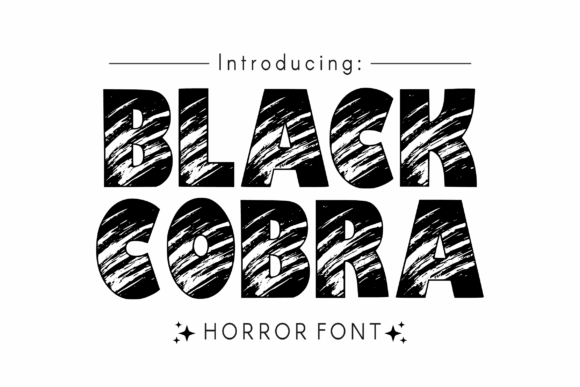
Unveiling the Spine-Chilling Allure of Black Cobra Font
In the realm of typography, few fonts manage to evoke the same level of intrigue and fear as the Black Cobra Font. This unique typeface is a masterful blend of horror and grunge elements, distilled into a shadowy style that’s as captivating as it is unsettling. Each character in the Black Cobra Font is meticulously designed with distinctive strokes that seem to whisper tales of eeriness, making it the perfect choice for designers and crafters looking to inject a dose of fear into their creative projects.
The Birth of a Monster: Design and Features
The Black Cobra Font is not just a collection of letters; it’s an experience. Its design is rooted in the darker corners of imagination, where the ordinary rules of typography are bent to create something that’s both haunting and mesmerizing. The font’s characters are crafted with a level of detail that brings out the horror and mystery in any text, transforming it into a visual narrative that’s as engaging as it is spine-chilling.
One of the standout features of the Black Cobra Font is its versatility. Whether you’re working on a screen printing project for t-shirts, designing striking mugs, creating catchy stickers, or crafting eye-catching posters, this font adapts seamlessly to various mediums and design needs. Its unique style doesn’t just convey a message; it tells a story, evoking emotions and reactions that are hard to ignore.
Bringing Fear to Life: Creative Applications
For designers and crafters, the Black Cobra Font opens up a world of creative possibilities. Imagine a t-shirt with a slogan that seems to leap off the fabric, its shadowy letters echoing the mystique of the night. Or picture a mug that appears to whisper dark secrets, its font seeming to shift and shimmer in the light. The Black Cobra Font isn’t just a design element; it’s a central character in your creative narrative, capable of transforming the mundane into the extraordinary.
In the world of digital design, standing out is key. The Black Cobra Font offers a distinctive edge, allowing designers to create works that are not only visually stunning but also emotionally resonant. Whether you’re aiming to create a sense of foreboding, mystery, or sheer horror, this font provides the tools to bring your vision to life.
Why Choose Black Cobra Font?
So, why should designers and crafters choose the Black Cobra Font for their projects? The answer lies in its unique blend of style, versatility, and emotional impact. Here are a few compelling reasons:
- Unique Style: In a sea of generic fonts, the Black Cobra Font stands out with its distinctive horror-grunge aesthetic.
- Versatility: From digital designs to print projects, this font adapts to various mediums and applications.
- Emotional Resonance: It evokes a range of emotions, from intrigue to fear, making it perfect for projects that aim to leave a lasting impression.
Dive into the Darkness
The Black Cobra Font is more than just a typographical choice; it’s an invitation to explore the darker side of creativity. It’s for those who dare to venture into the unknown, who see beauty in the eerie and mysterious, and who aim to create works that linger in the minds of their audience.
Whether you’re a seasoned designer or a crafter looking to experiment with new ideas, the Black Cobra Font is a tool that promises to unlock new levels of creativity and expression. So, embrace the darkness, and let the Black Cobra Font guide you into a world where typography meets terror, and where creativity knows no bounds.
In conclusion, the Black Cobra Font is not just a font; it’s an experience, a journey into the heart of darkness where creativity and fear entwine. For those ready to embrace its unique charm, it offers a world of possibilities, a chance to create works that are as memorable as they are unsettling. Dive into the darkness with the Black Cobra Font, and discover a new dimension of creative expression.